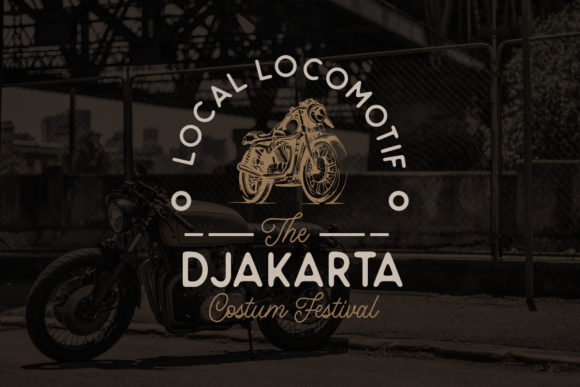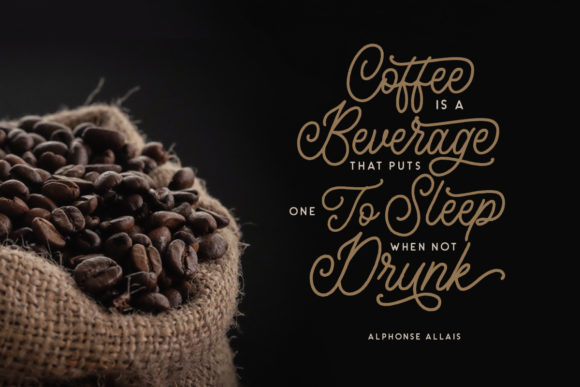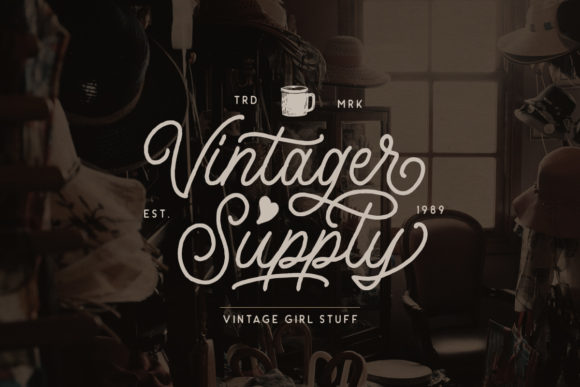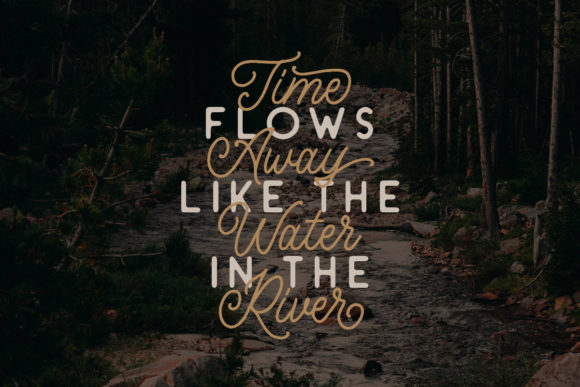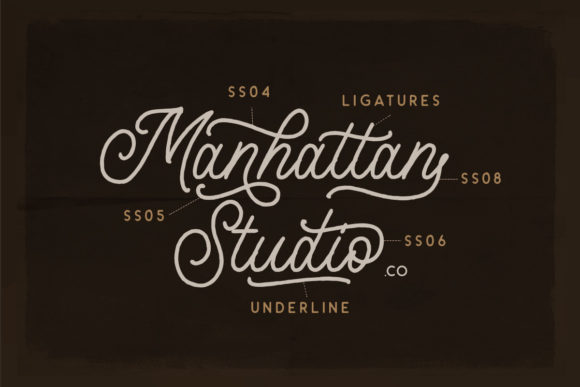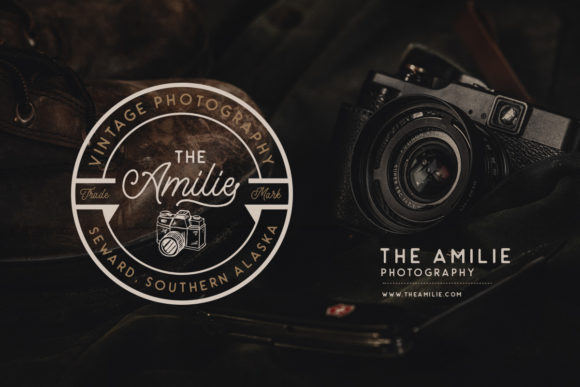
Introducing the Headley Duo Font: A Timeless Vintage Pairing for Creative Projects
In the world of typography, finding the perfect font duo can elevate your design projects from ordinary to extraordinary. For designers, crafters, and creatives looking for a vintage flair, the Headley Duo Font is an exceptional choice. This versatile font pairing consists of two distinct styles: a rough sans and a monoline script, each offering a unique aesthetic that can transform your logos, quotes, apparel, posters, and more.
The Headley Duo: A Closer Look
The Headley Duo Font is not just any font; it’s a carefully crafted pairing designed to offer flexibility and creativity. The duo includes:
- Rough Sans: The sans-serif version of the Headley Duo Font boasts a rugged, hand-crafted look. Its rough texture gives it a vintage feel, reminiscent of hand-painted signs or early 20th-century posters. This style is perfect for creating bold statements and works exceptionally well in designs that require a strong, eye-catching font.
- Monoline Script: The monoline script version offers a beautiful contrast to the rough sans. With its smooth lines and elegant flow, this script is ideal for adding a touch of sophistication to your designs. It can be used for quotes, titles, and any text that requires a bit of flair and personality.
The versatility of the Headley Duo Font is one of its most significant advantages. Whether you’re working on:
- Logos: The combination of the rough sans and monoline script can help create a memorable brand identity. The contrast between the two styles can make your logo stand out and convey a unique brand message.
- Quotes and Posters: Add a vintage touch to your inspirational quotes and posters. The Headley Duo Font’s distinct styles can help emphasize the message and make your designs more engaging.
- Apparel: Design custom t-shirts, hoodies, or hats with the Headley Duo Font for a personalized and stylish look. The font’s readability and aesthetic appeal make it perfect for apparel design.
- Stationery and Packaging: Elevate your brand’s stationery, such as business cards, letterheads, and packaging, with a touch of vintage elegance. The Headley Duo Font can add a unique character to your brand’s written communications.
Why Choose the Headley Duo Font?
With so many fonts available, why should you choose the Headley Duo Font for your projects? Here are a few compelling reasons:
- Unique Vintage Aesthetic: The Headley Duo Font offers a distinctive vintage look that’s hard to find in modern fonts. Its unique texture and elegant script can set your designs apart.
- Versatility: The pairing of a rough sans and a monoline script gives you the flexibility to experiment with different design combinations, ensuring your projects always look fresh and engaging.
- Easy to Read: Despite its vintage feel, the Headley Duo Font is highly legible, making it suitable for a wide range of applications, from large posters to smaller business cards.
- Customization: The font duo can be easily customized to fit your project’s needs. Whether you’re adjusting the size, color, or integrating it with other design elements, the Headley Duo Font adapts seamlessly.
The Headley Duo Font is more than just a font; it’s a design solution that brings a vintage charm to your creative projects. With its rough sans and monoline script versions, this font duo offers the perfect blend of ruggedness and elegance. Whether you’re a designer looking for a unique typography solution or a crafter seeking inspiration for your next project, the Headley Duo Font is an excellent choice. Elevate your designs with the timeless appeal of this versatile font pairing and discover the difference it can make in your creative endeavors.